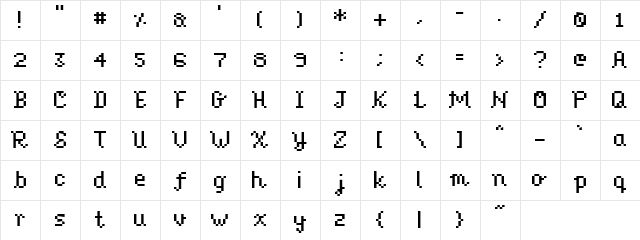
Lilany Medium Font Preview
Lilany Medium
Design Context for Lilany Typeface
Lilany is a composed and adaptable typeface that performs quietly and consistently across a wide range of design contexts.
Pro Tip: Use Lilany in both headline and body roles to test its range before committing to a single application.